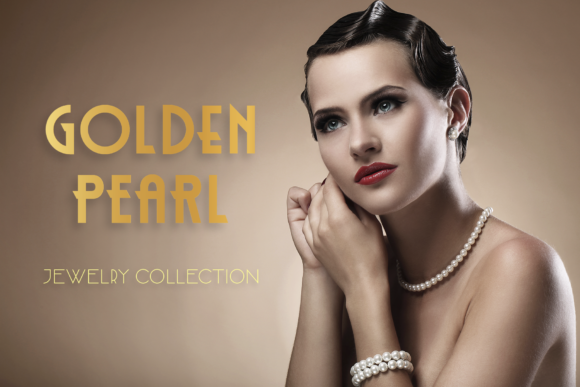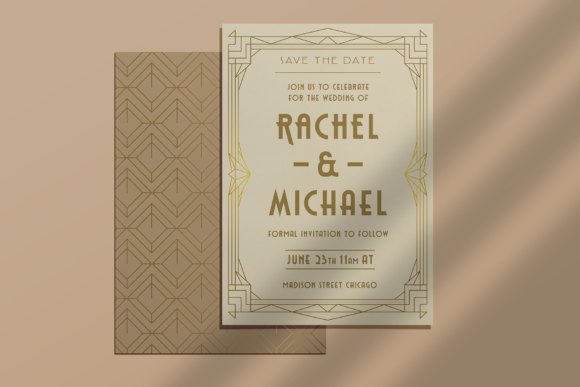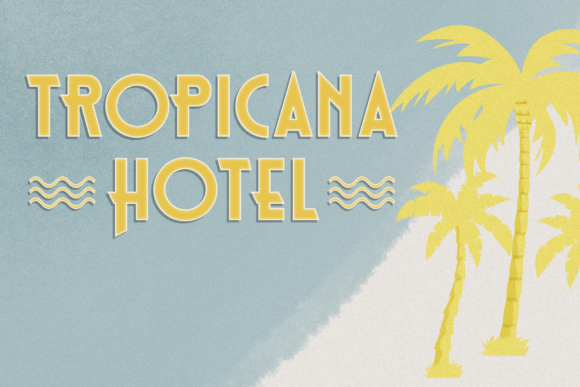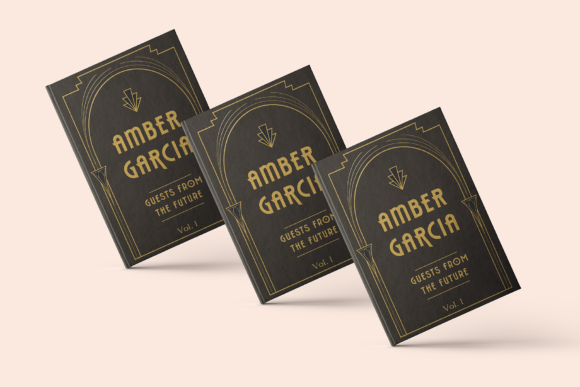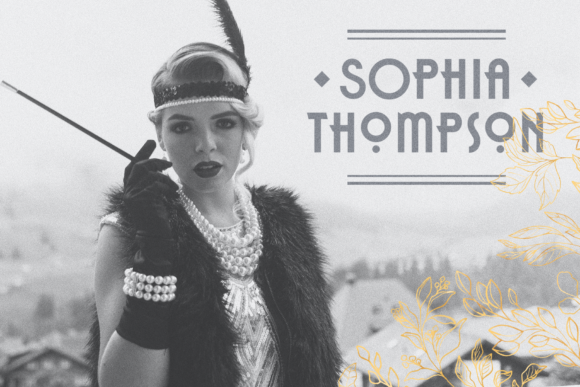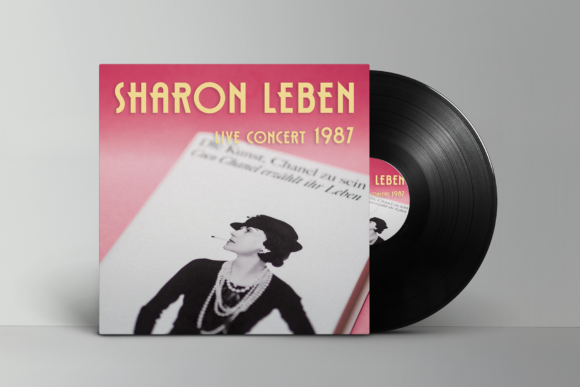
Costa Mala Font: A Timeless Vintage Display Font for Your Designs
Are you looking for a font that exudes a sense of nostalgia and playfulness? Do you want to add a touch of vintage charm to your designs? Look no further than the Costa Mala Font. This beautiful display font is perfect for designers and crafters who want to create stunning visuals that evoke a sense of classic elegance.
What is Costa Mala Font?
Costa Mala Font is a carefully crafted display font that features a neat and beautiful arrangement of letters. Its unique design makes it perfect for use in both formal and non-formal designs, from elegant wedding invitations to playful branding materials. With its vintage aesthetic, this font is sure to transport your audience back in time to an era of classic sophistication.
Key Features of Costa Mala Font
- Playfully Nostalgic: Costa Mala Font has a unique ability to evoke a sense of nostalgia and playfulness, making it perfect for designs that require a touch of vintage charm.
- Vintage Aesthetic: The font’s classic design ensures that it will add a touch of elegance and sophistication to any design.
- Neat and Beautiful Arrangement: The letters in Costa Mala Font are carefully arranged to create a beautiful and harmonious visual effect.
- Versatile: This display font can be used in both formal and non-formal designs, making it perfect for a wide range of projects.
Uses of Costa Mala Font
Costa Mala Font is a versatile font that can be used in a variety of design projects, including:
- Wedding Invitations: Add a touch of elegance and sophistication to your wedding invitations with Costa Mala Font.
- Branding Materials: Use this font to create playful and eye-catching branding materials, such as logos, business cards, and brochures.
- Signage: Costa Mala Font is perfect for creating eye-catching signage, from vintage-style shop signs to elegant event banners.
- Packaging: Add a touch of vintage charm to your product packaging with this beautiful display font.
Why Choose Costa Mala Font?
With so many fonts available, why choose Costa Mala Font? Here are just a few reasons:
- Unique Design: Costa Mala Font has a unique design that sets it apart from other fonts.
- High-Quality: This font is carefully crafted to ensure that it is of the highest quality.
- Versatile: This font can be used in a wide range of design projects, making it a great addition to any design library.
Costa Mala Font is a beautiful display font that is perfect for designers and crafters who want to add a touch of vintage charm to their designs. With its neat and beautiful arrangement of letters, this font is sure to evoke a sense of nostalgia and playfulness. Whether you’re creating formal or non-formal designs, Costa Mala Font is a great choice. So why wait? Download Costa Mala Font today and start creating stunning visuals that will transport your audience back in time.
- What is the style of Costa Mala Font? Costa Mala Font is a vintage-style display font.
- Is Costa Mala Font easy to read? Yes, Costa Mala Font is easy to read, even at smaller sizes.